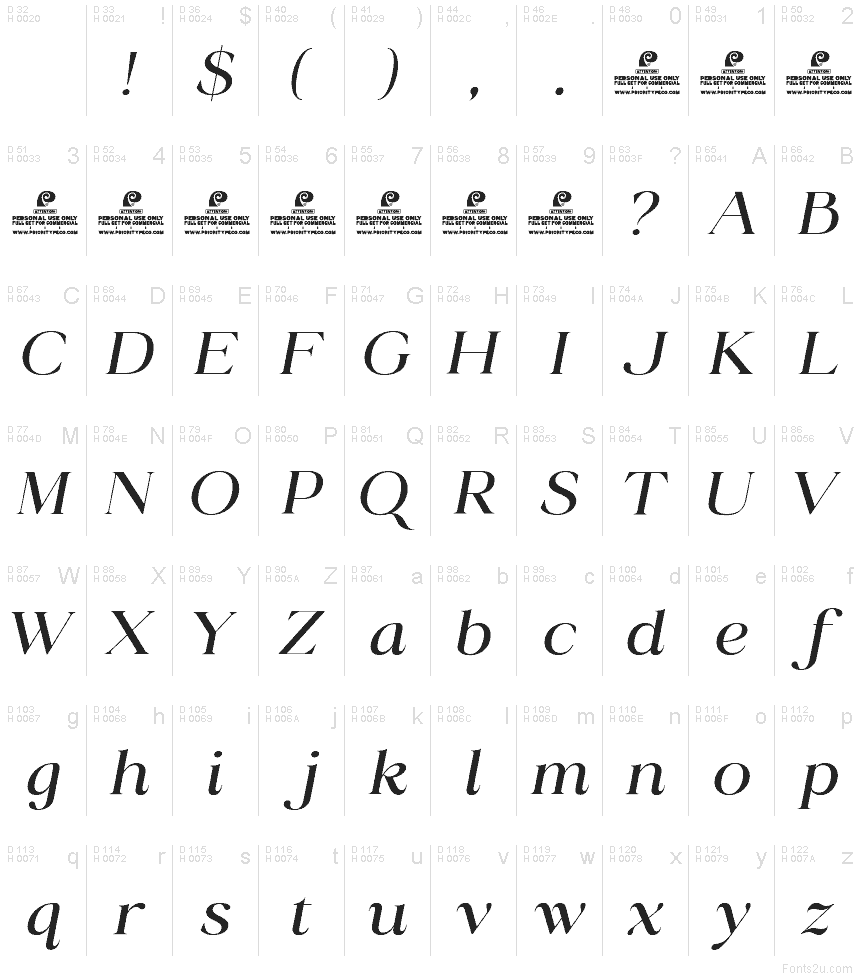
Radiant Charisma DEMO Med Ita
Radiant Charisma Med Italic font by Prioritype Co is an elegant and sophisticated serif font that exudes grace and traditional charm. With a stylish flow and expressive mood, it captures classic influences while offering a modern twist. The meticulously designed typeface radiates an artistic flair, ideal for projects that require a refined touch.